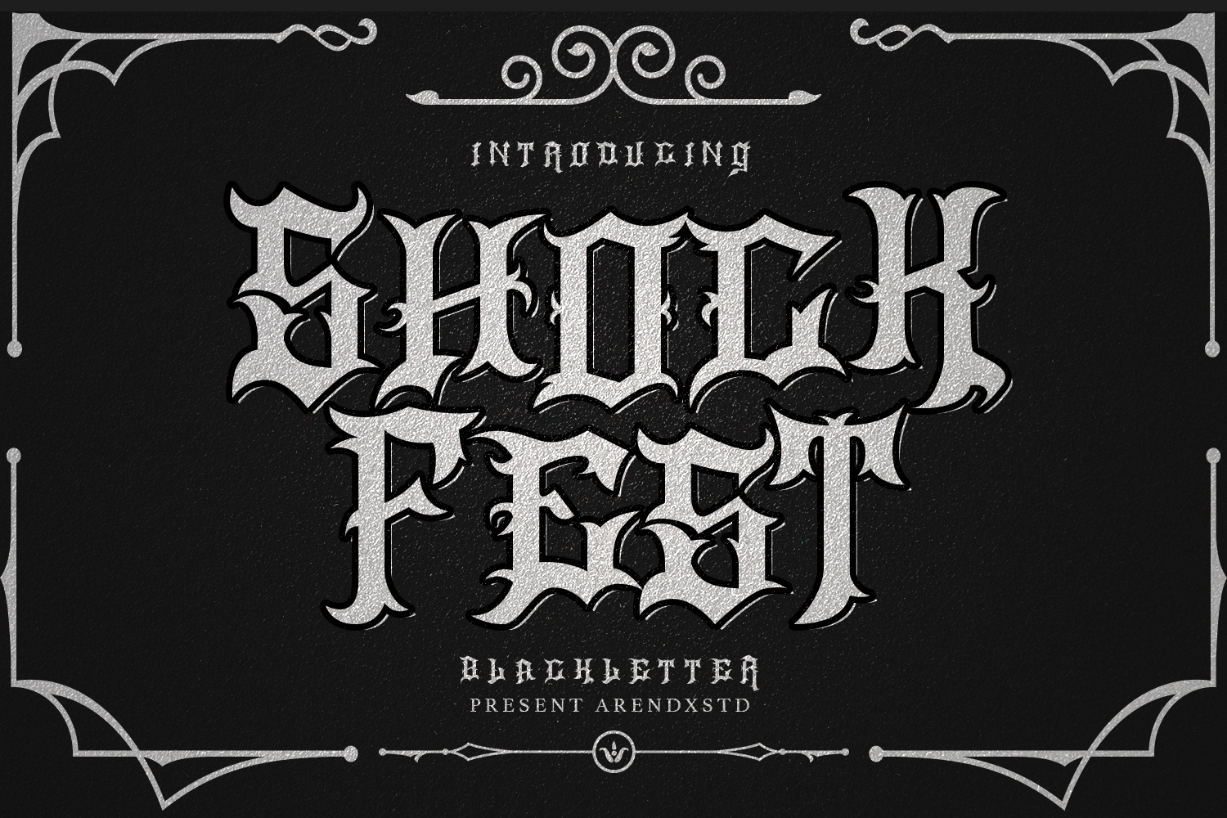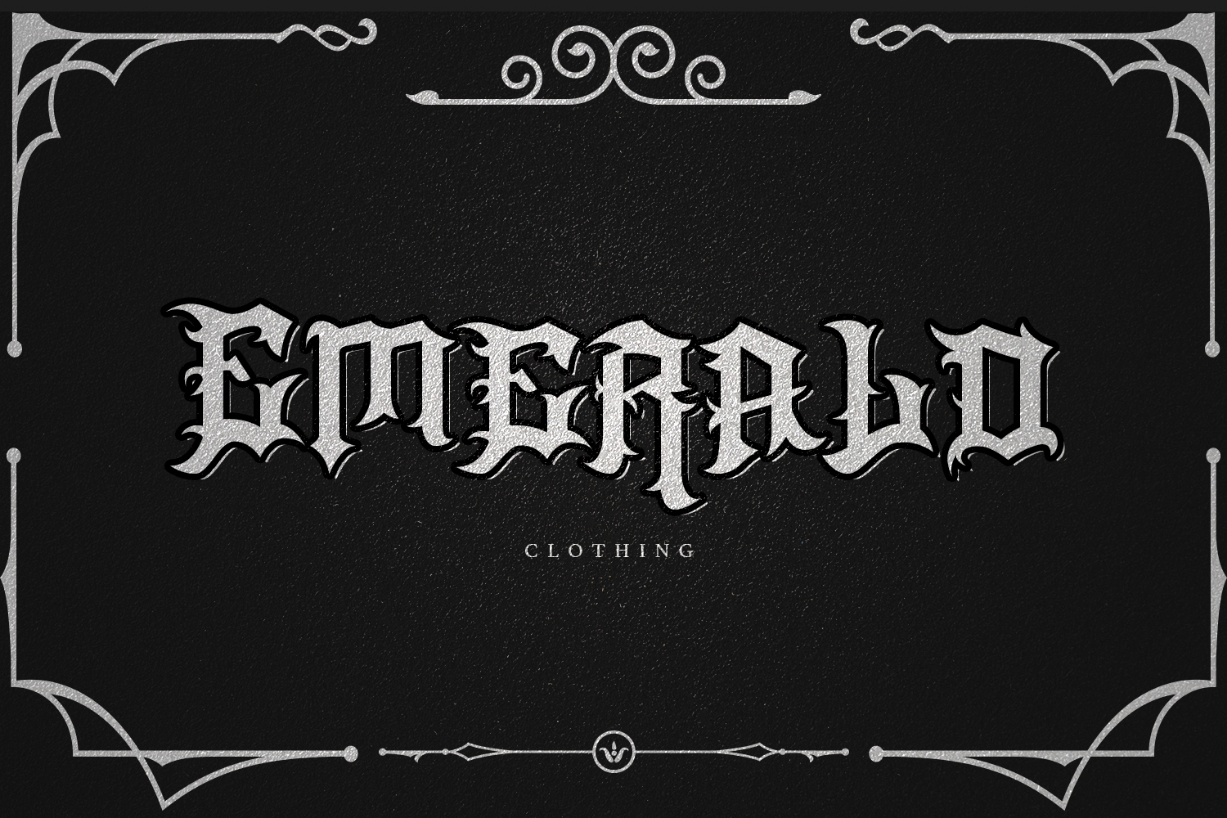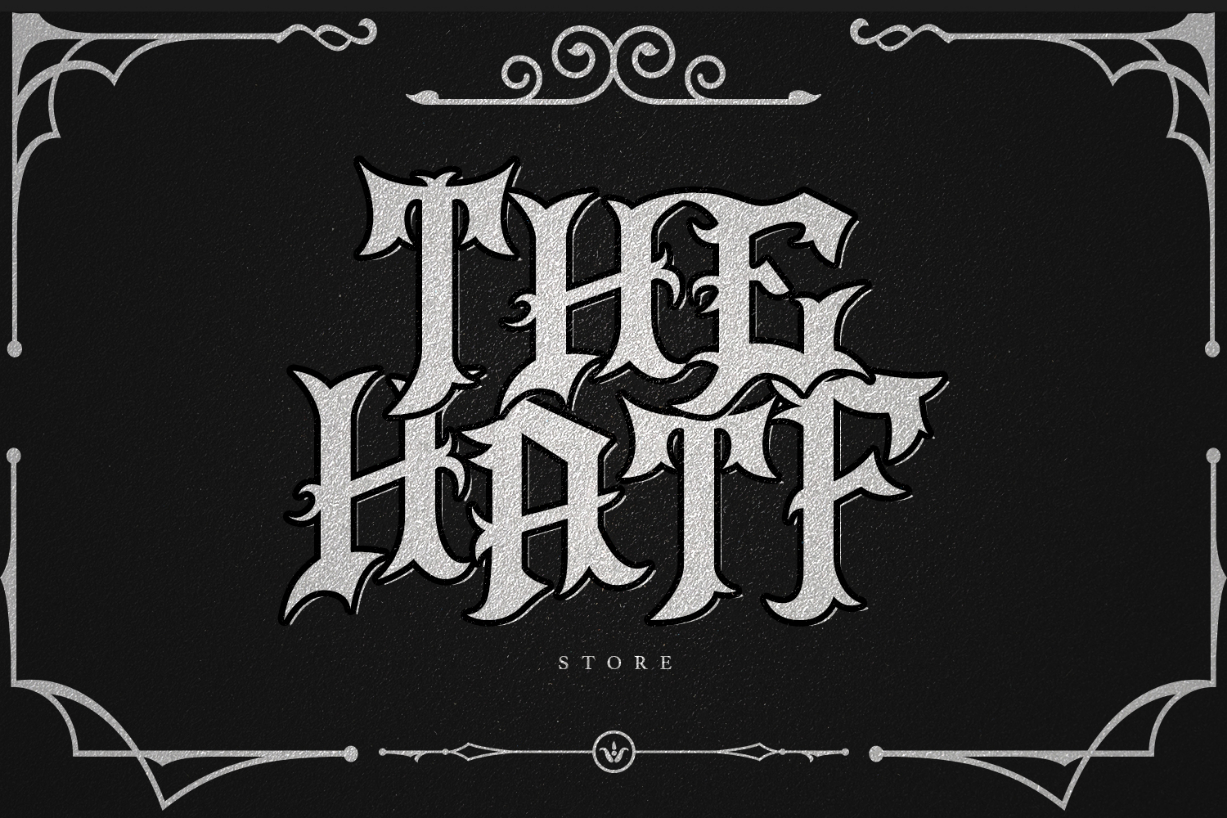
About Shock Fest Font
Shock Fest is a powerful blackletter font. It features a great look and feel and it is perfect for logos, tattoo designs, branding, stationery and much more!